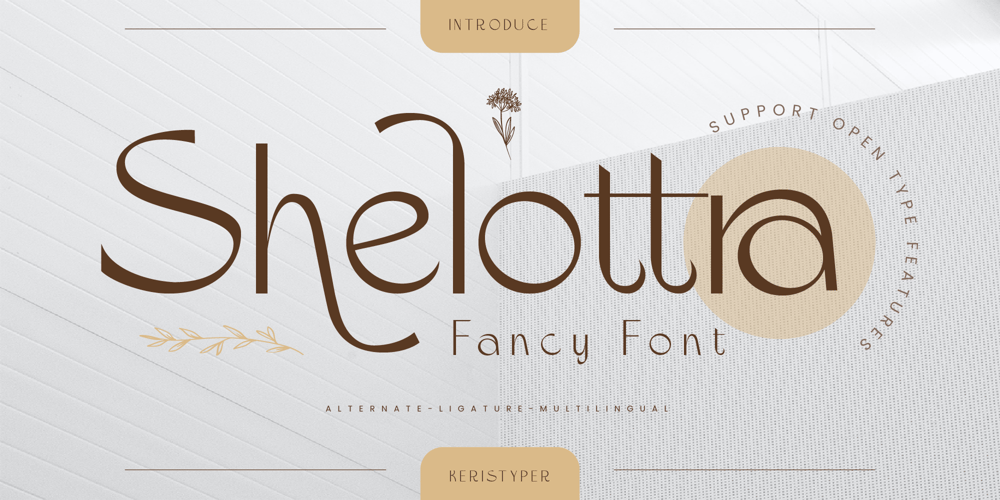
Shelottra Font Family was designed by Tezar Tantular and published by Keristyper Studio. Shelottra contains 1 styles and family package options. Shelottra is an elegant beauty fancy display font with expressive shapes and characteristics to bring magical imagination in your design. This font is good for logo design, Social media, Movie Titles, Books Titles, short text even long text letters, and good for your secondary text font with the script, sans, or serif.Featured: Standard Uppercase & Lowercase Numeral & Punctuation Multilingual : ä ö ü Ä Ö Ü ß ¿ ¡ Alternate & Ligature PUA encoded We recommend programs that support the OpenType feature and the Glyphs panel such as Adobe applications or Corel Draw. so you can use all the variations of the glyphs.Hope you enjoy our fonts!